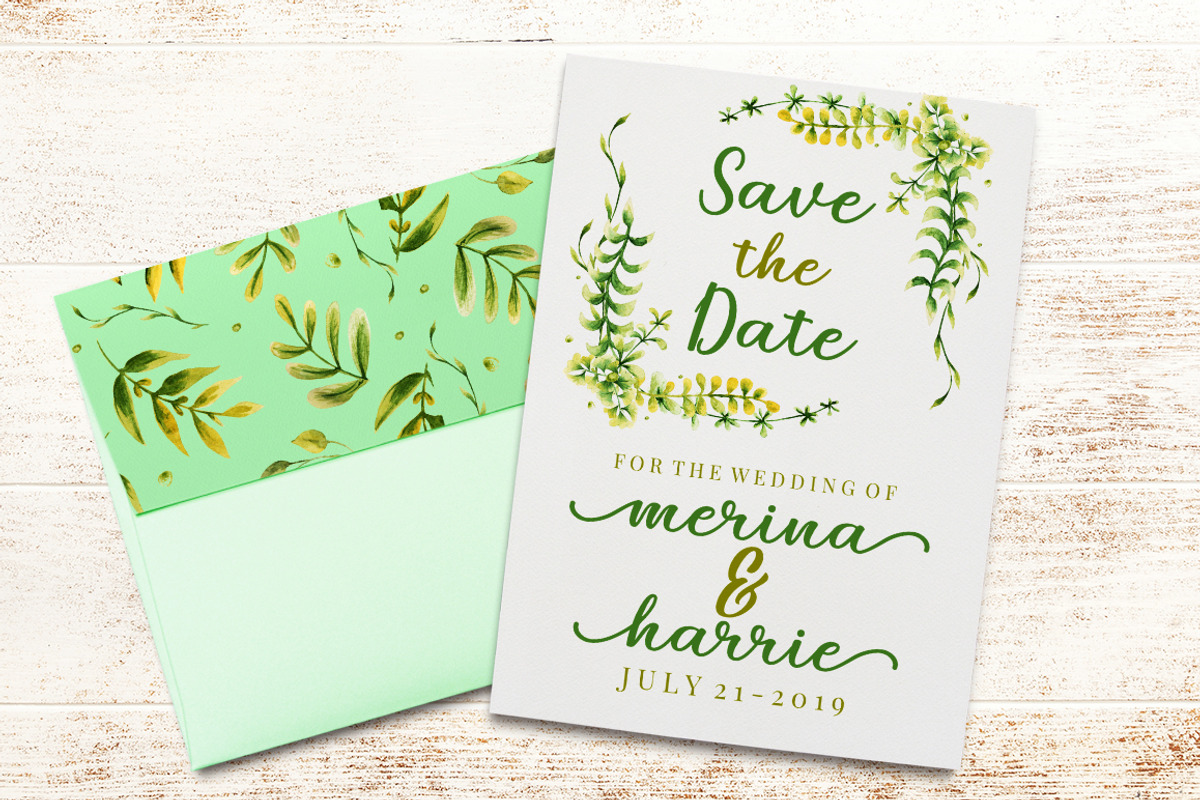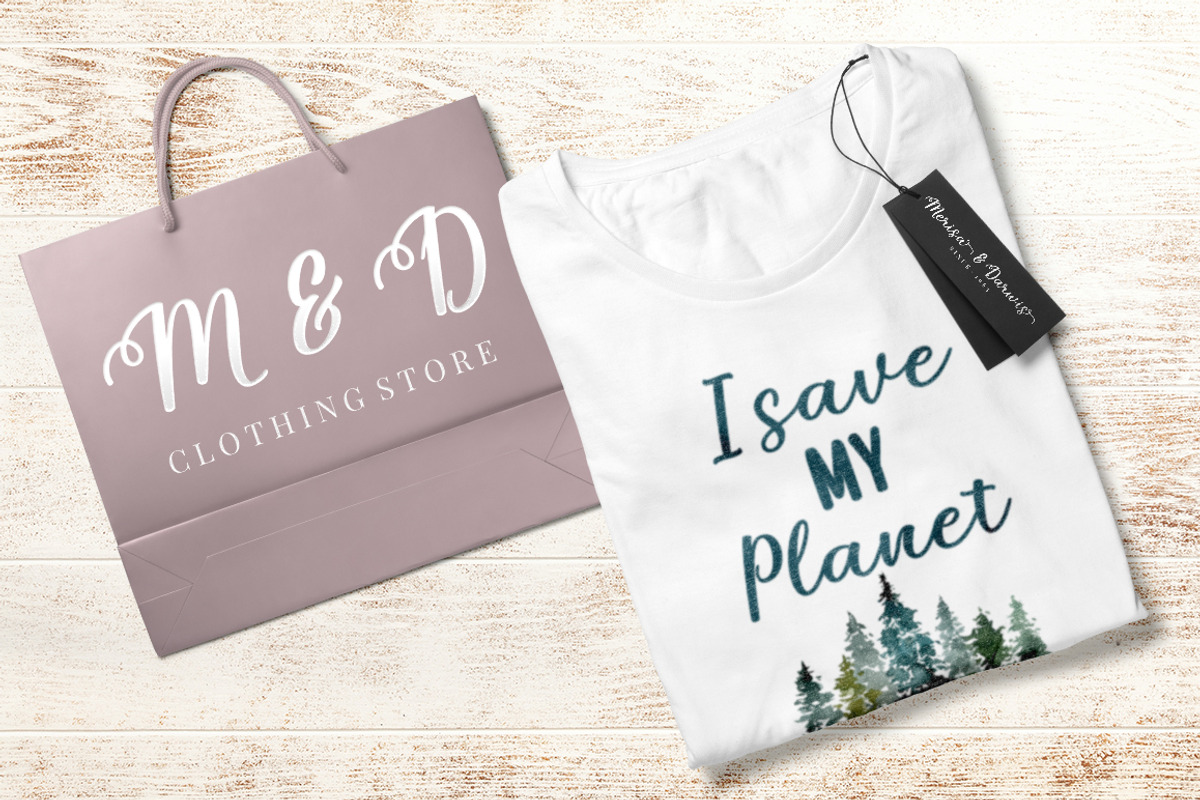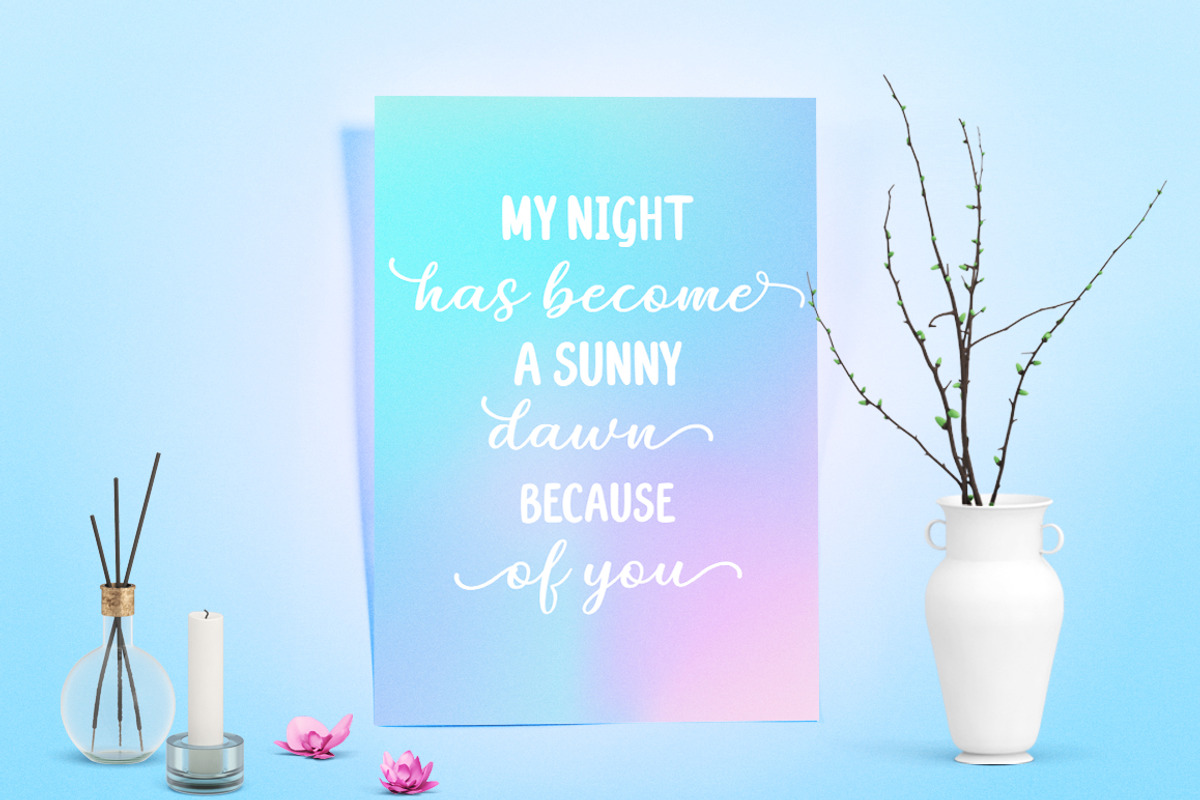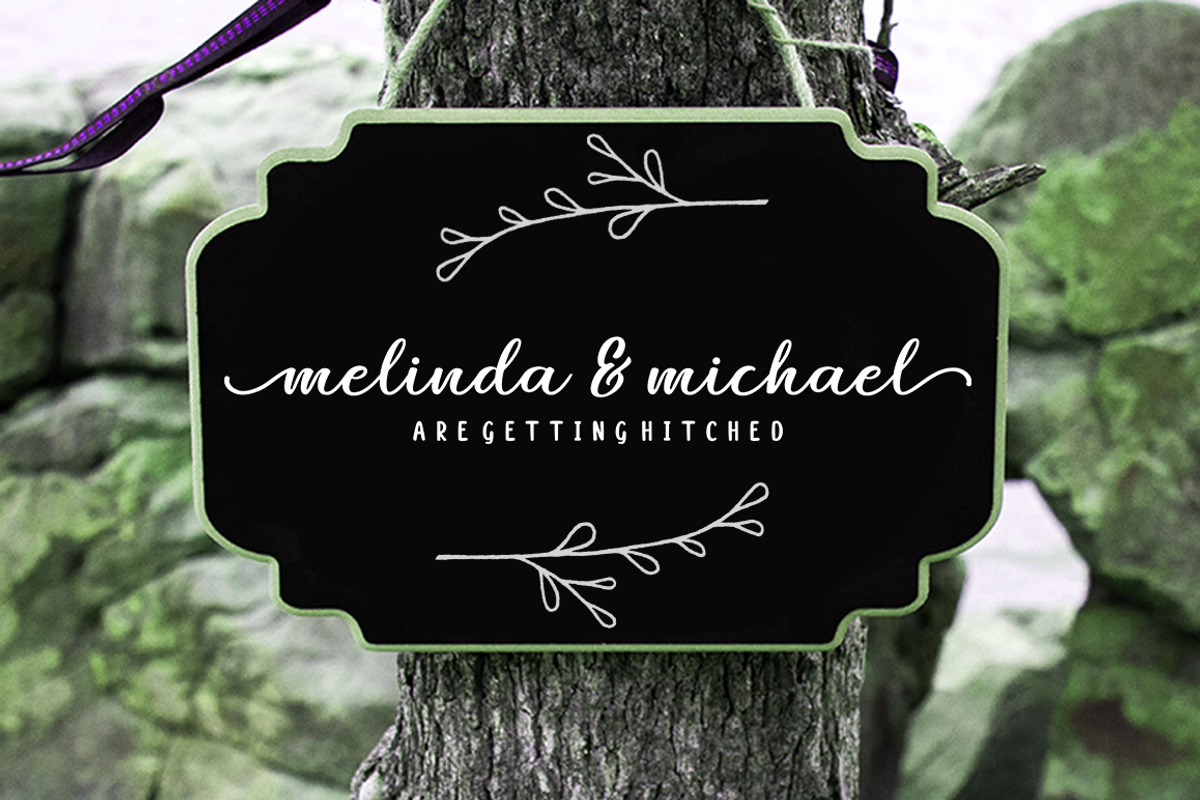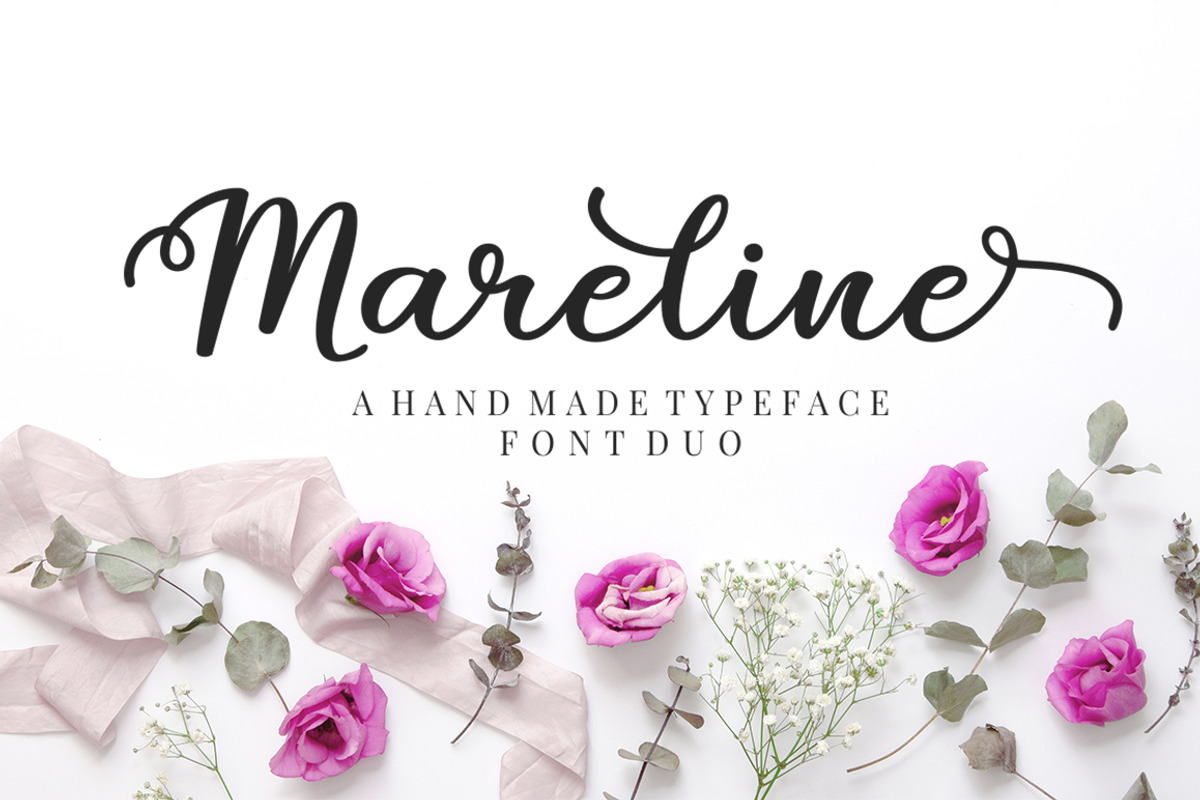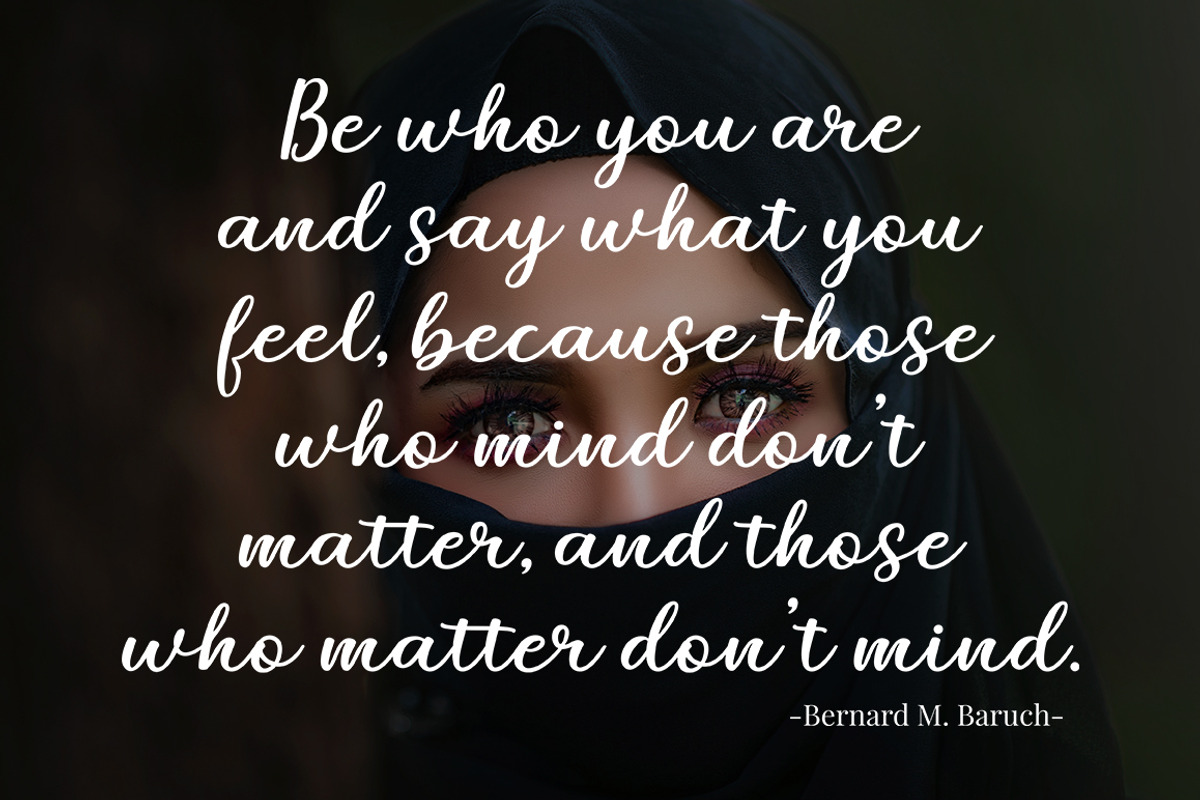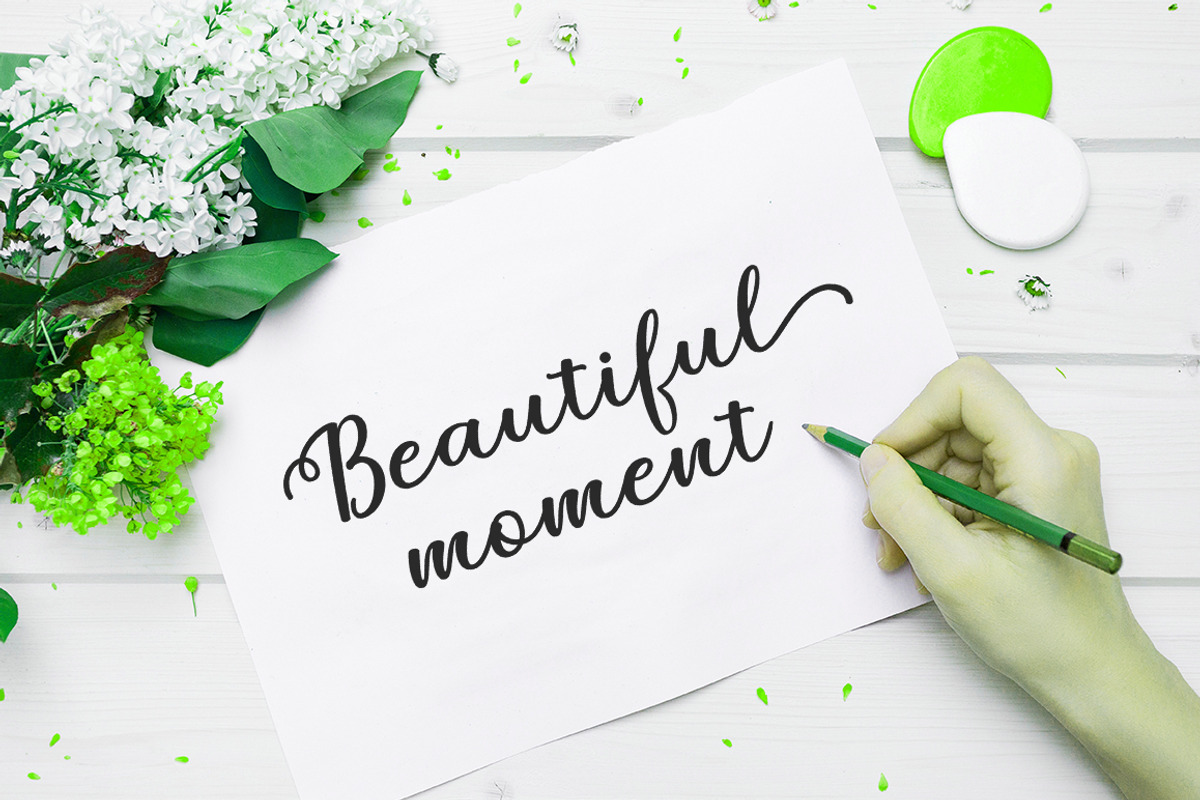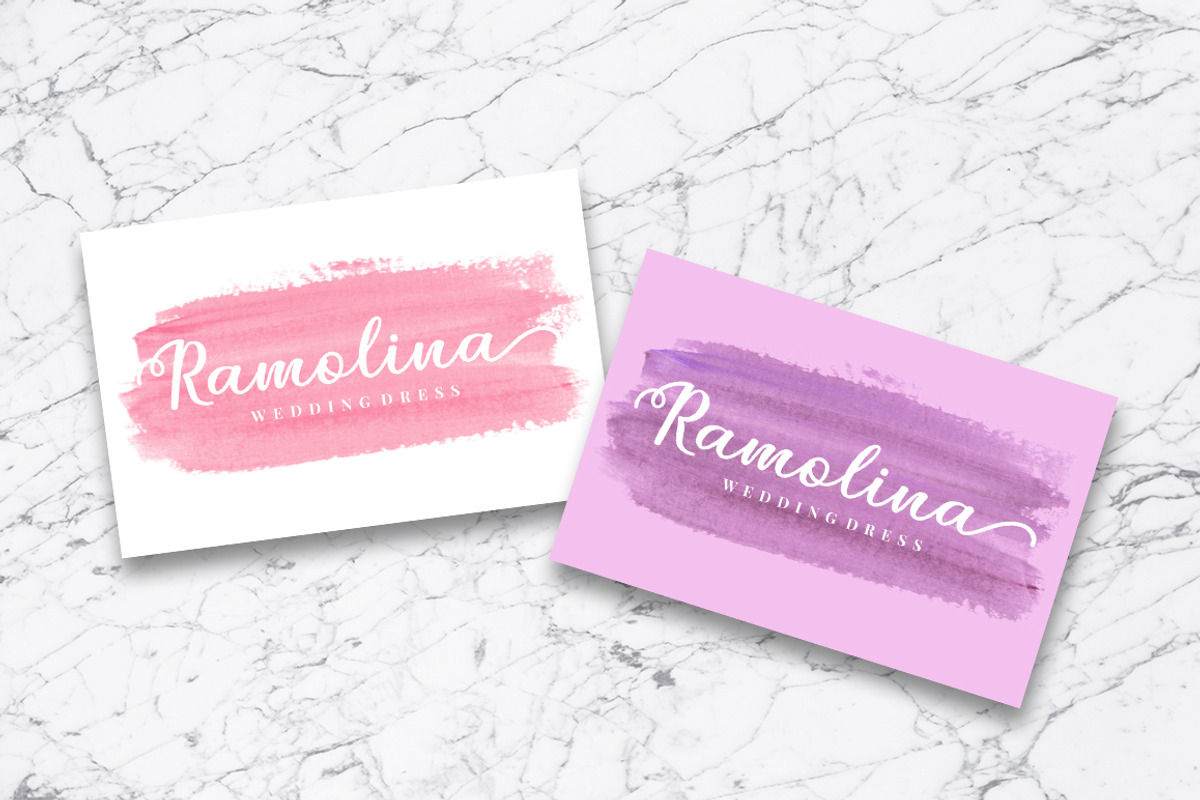
Mareline Script Font Duo
Introducing Mareline Script Font Duo, a sweet handlettered font, casual and dynamic, bold and irregular baseline. Contains a complete set of lowercase, uppercase, alternates, ligatures, punctuation, numbers, and multilingual support. And additional Mareline sans, working in harmony with Mareline script to create awesome typography creations. Get some inspiration from the preview above.
This font ideal for use in watercolor design or lettering style bold hand, such as posters, wedding elements, t-shirt, apparel, cover books, business cards, greeting cards, branding, merchandise, invitations and handmade quotes and more.
Why Mareline Script Font Duo is worth a look
Mareline Script Font Duo by Megatype fits naturally into Branding, posters, packaging, typography.